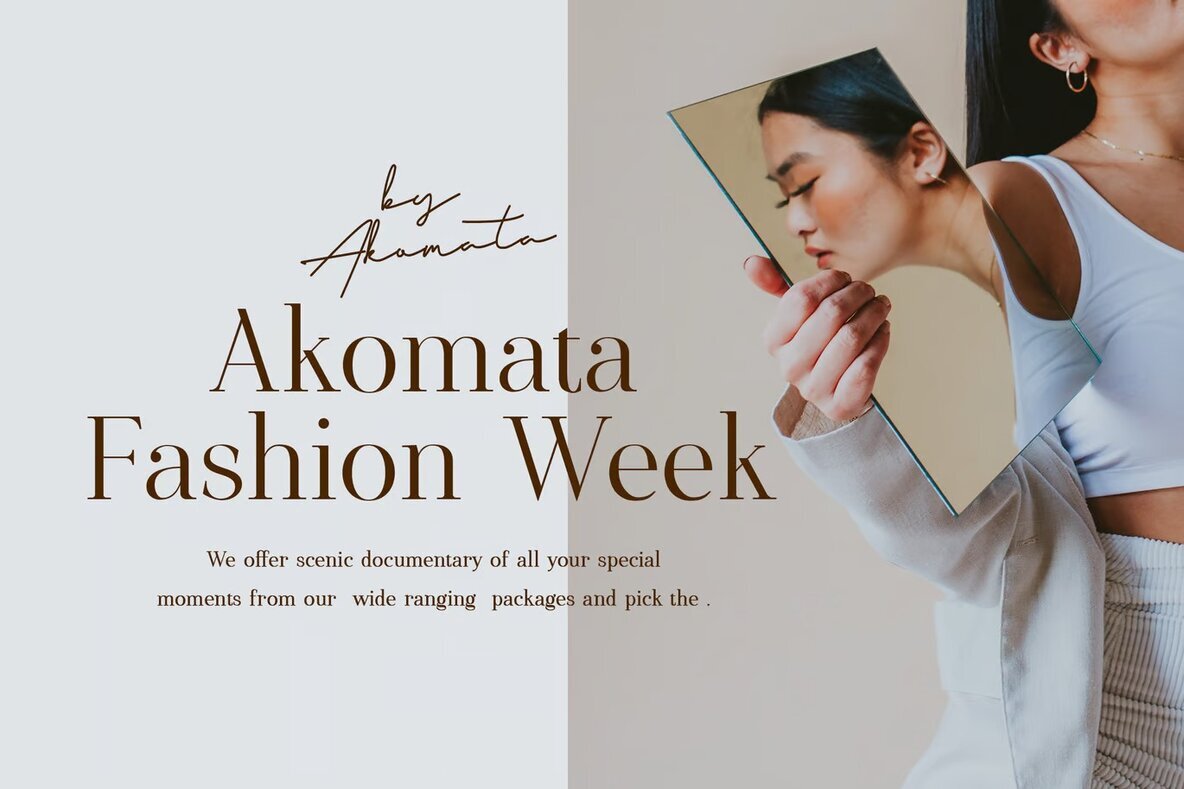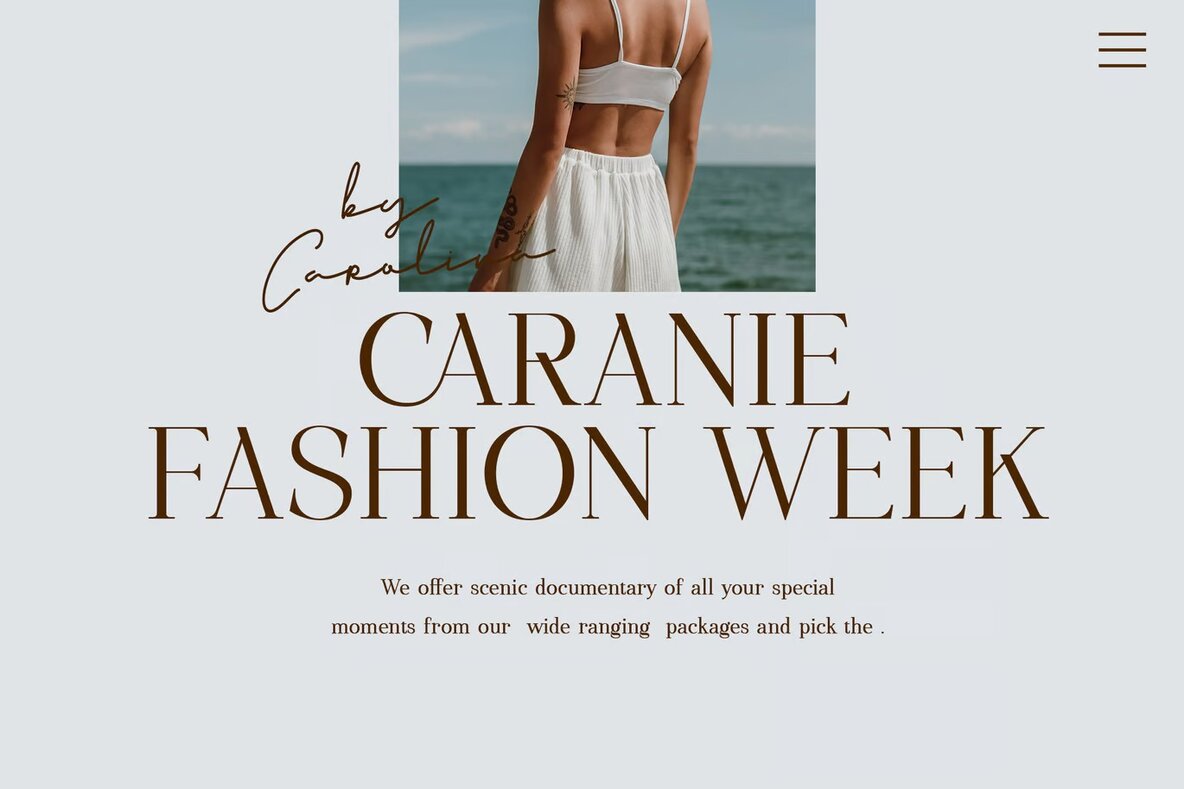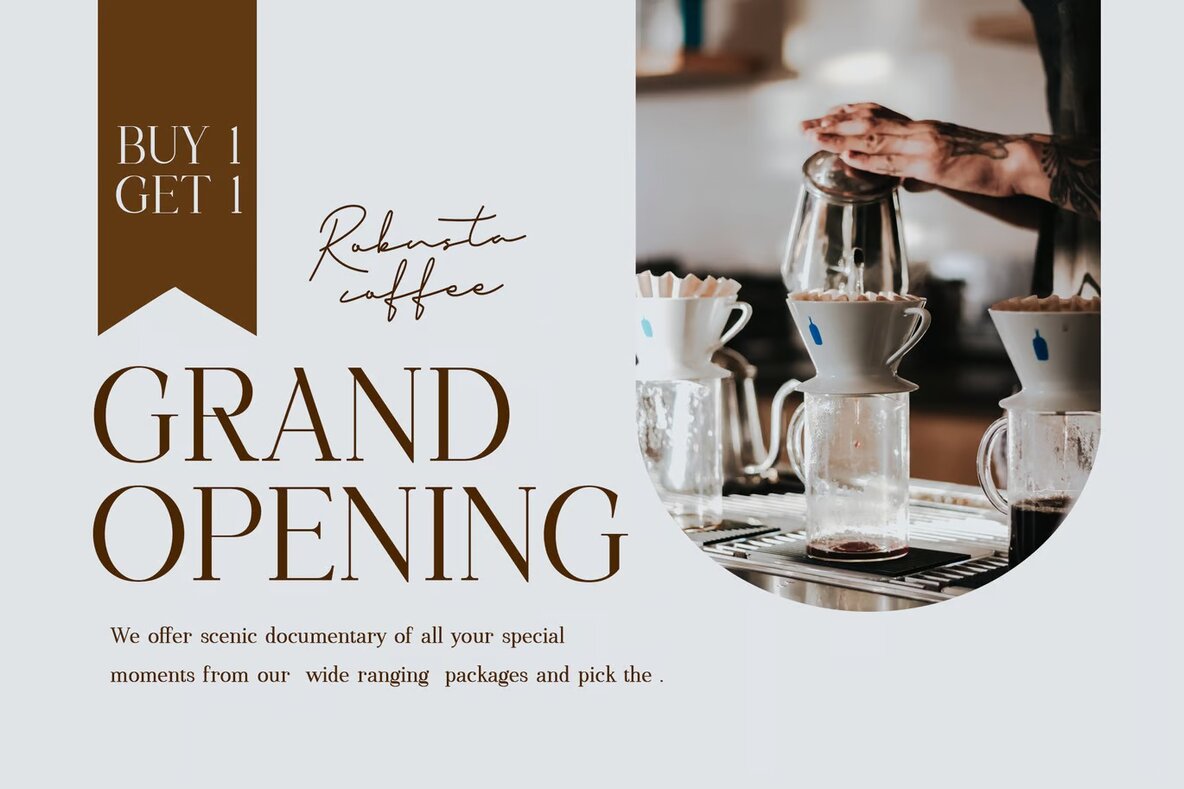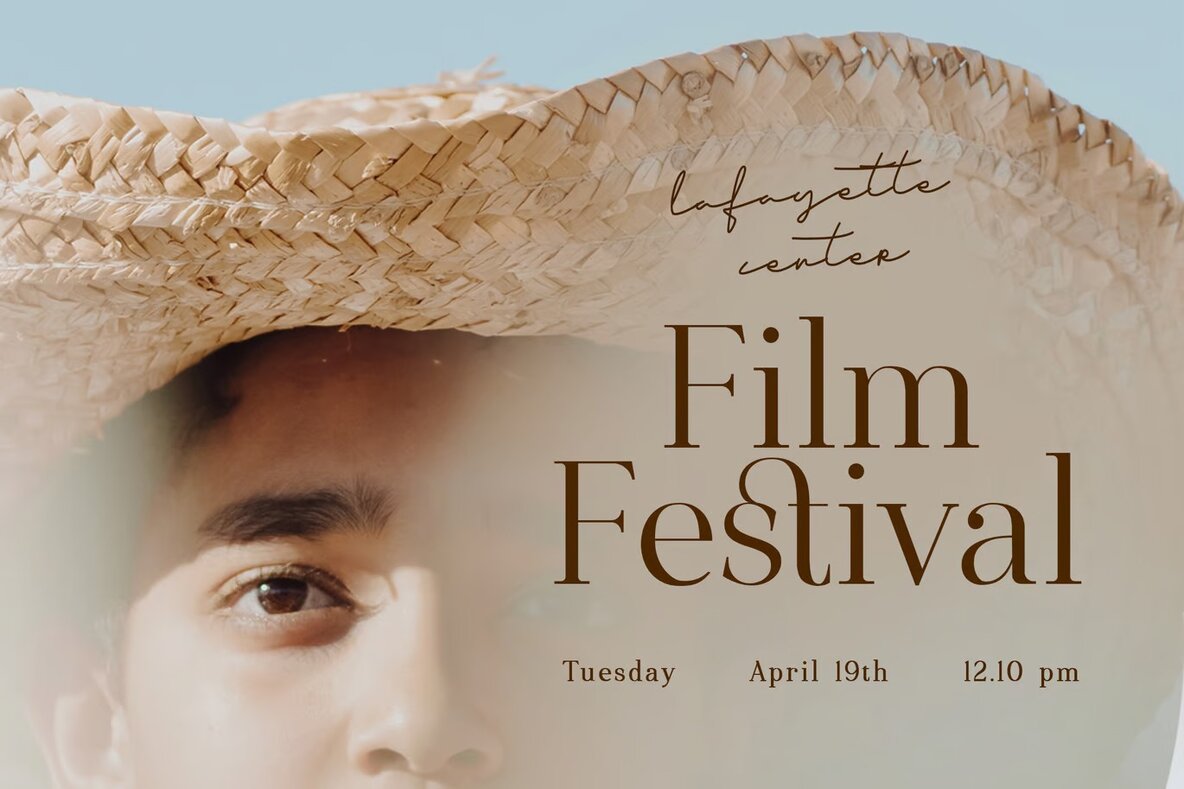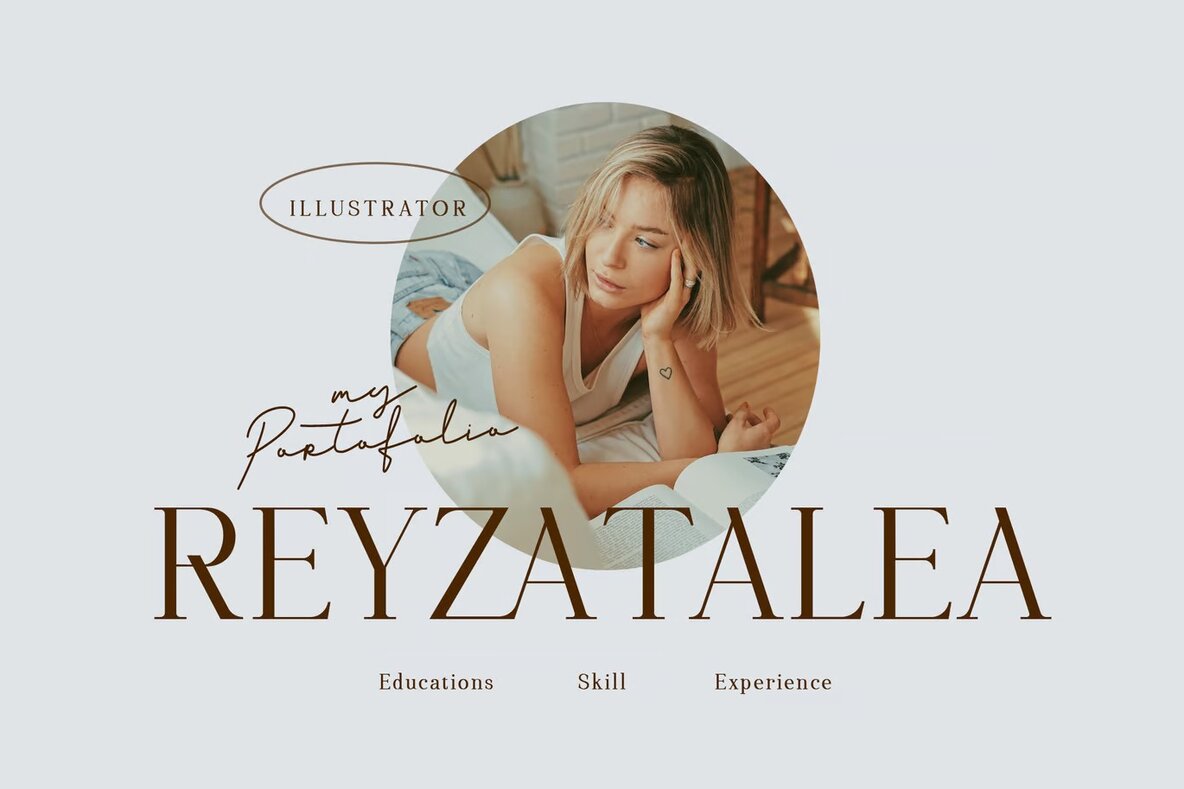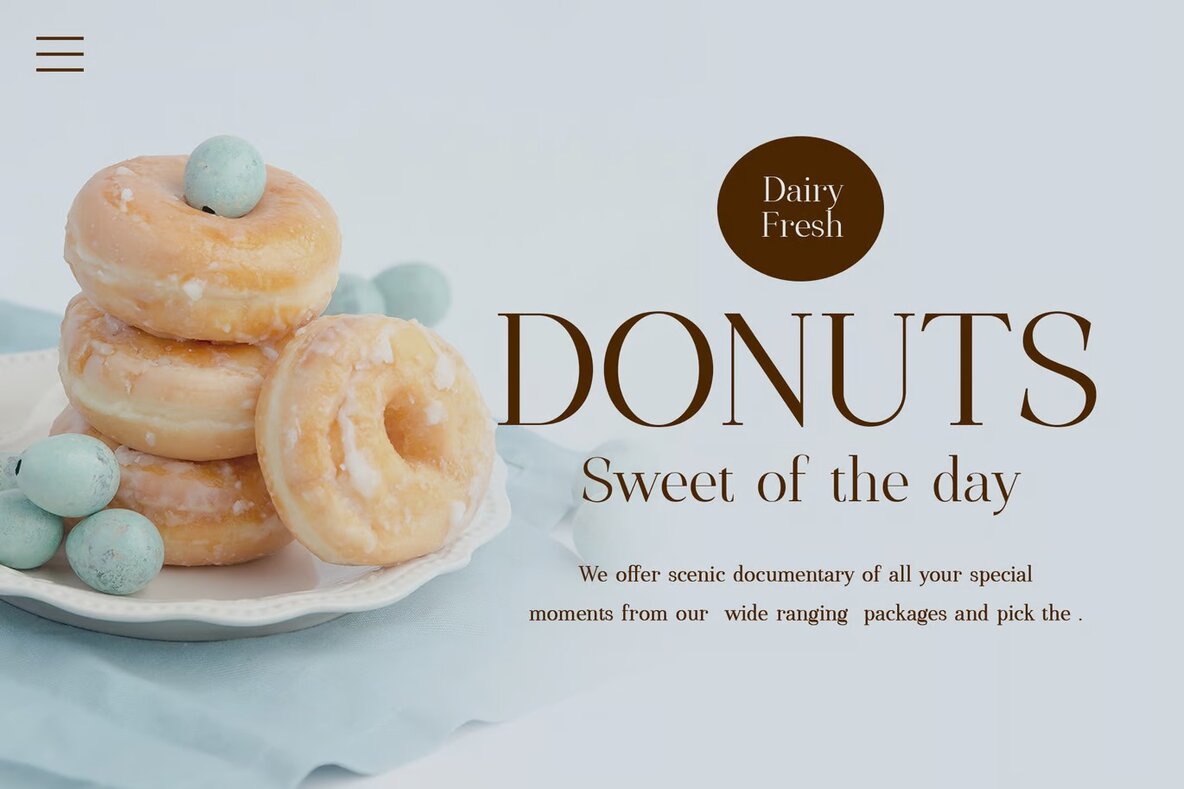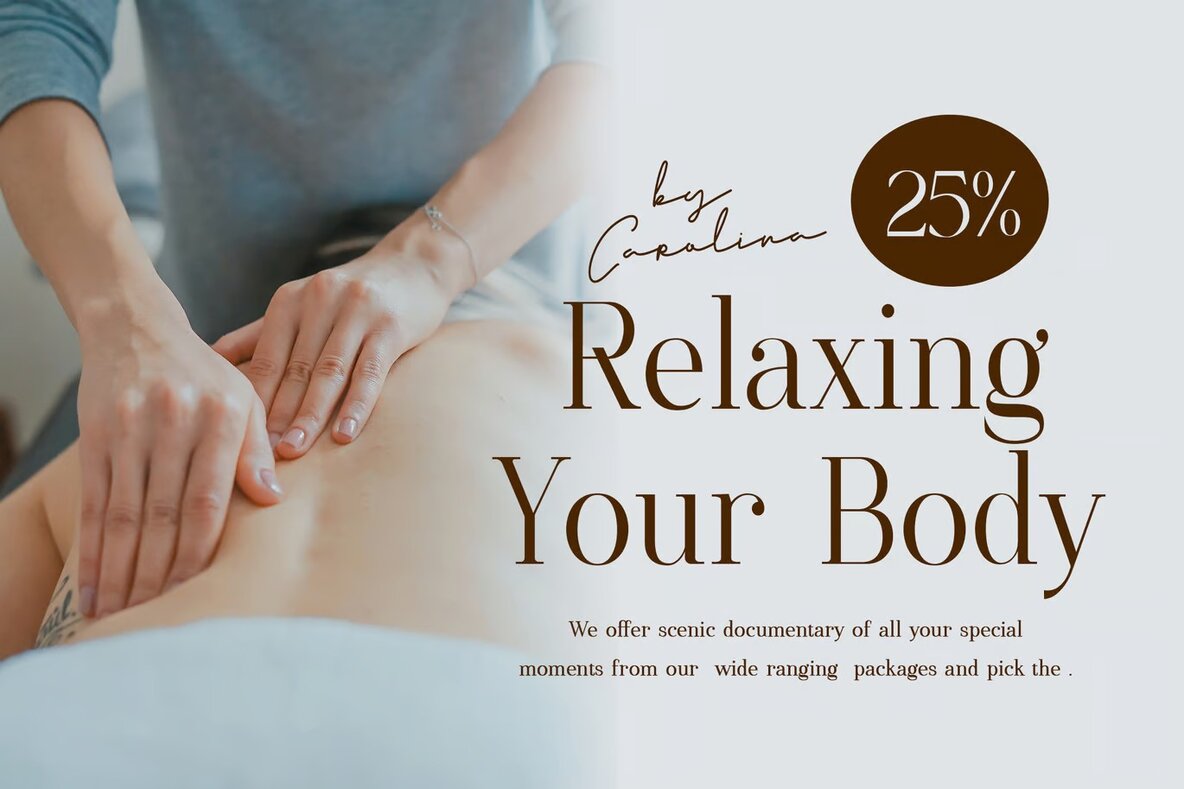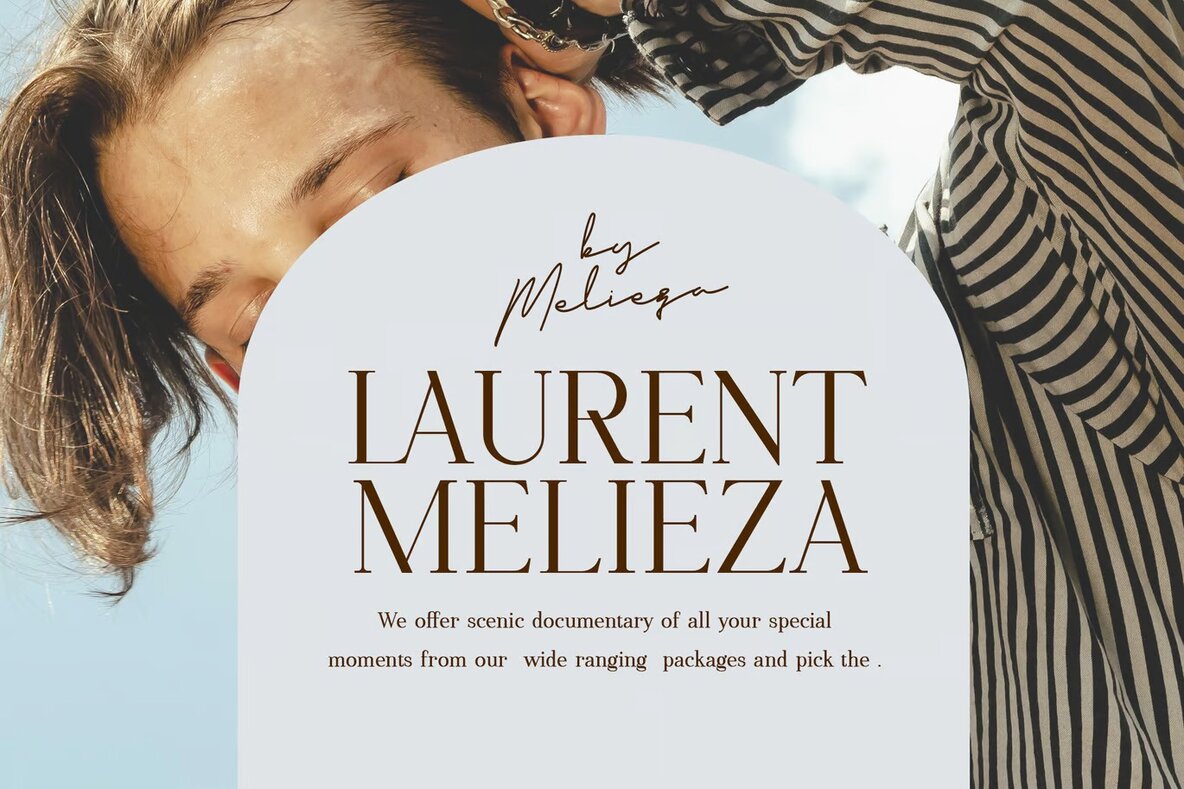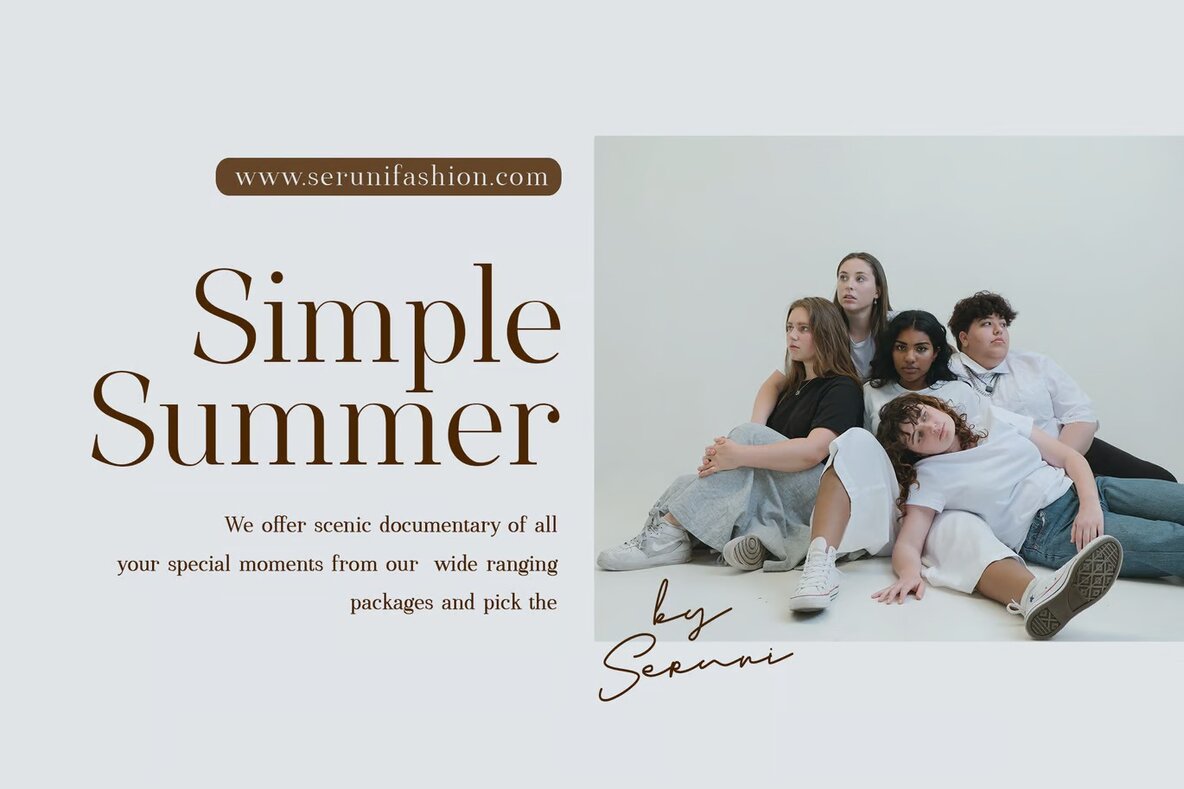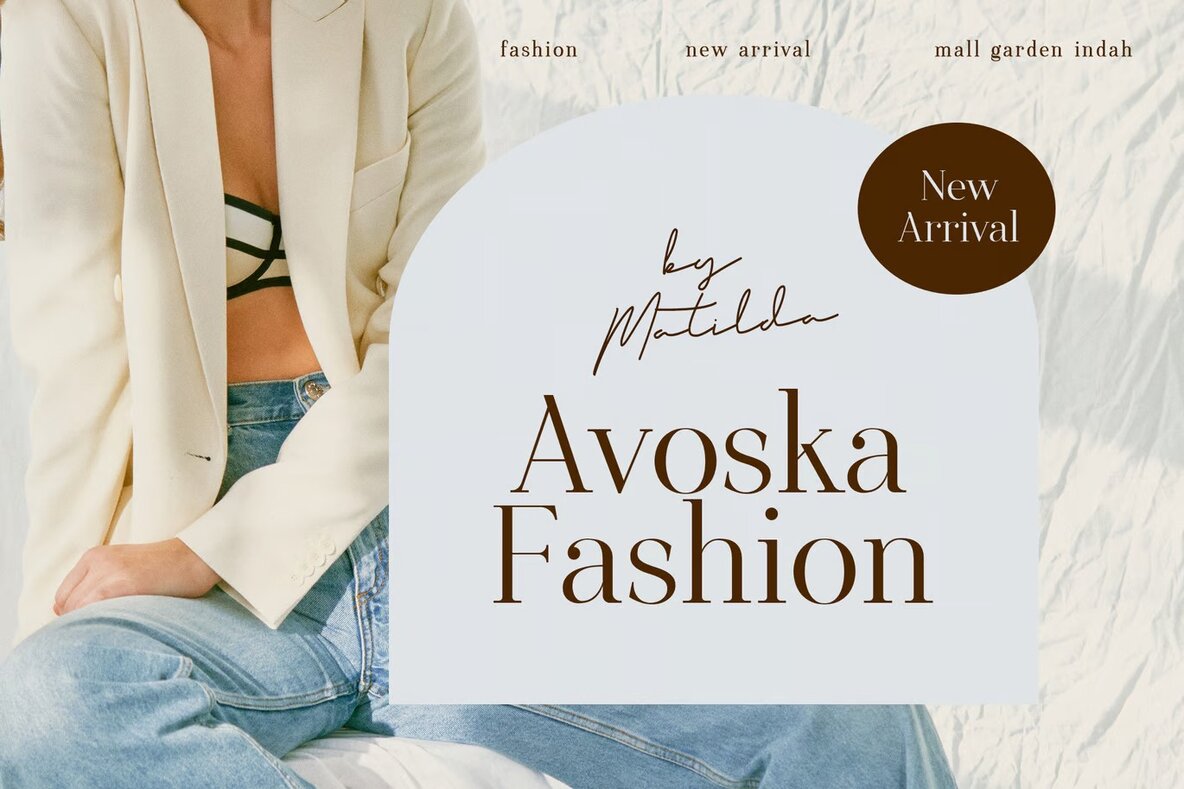
Gizacake Font
Gizacake Regular
Gizacake Elegant Serif is a sophisticated and modern typeface, ideal for a variety of high-end design projects. Its refined style makes it suitable for luxury logos and branding, chic editorial designs, and upscale fashion promos. Use this elegant serif to create captivating visuals for women's magazines, cosmetic brands, or boutique branding. Its timeless charm seamlessly integrates with art gallery branding and architectural history themes, enhancing the aesthetic of your project with a touch of elegance.
This versatile serif font is also perfect for stationery design, blogs, and modern advertisements. Whether crafting an invitation card, art quote, or home decor, Gizacake adds a classy touch to your design work. It's also an excellent choice for book covers and titles, offering a distinguished look for publications or special event materials. Embrace Gizacake to bring a sense of sophistication and style to every piece, ensuring your designs capture attention and convey luxury effortlessly.